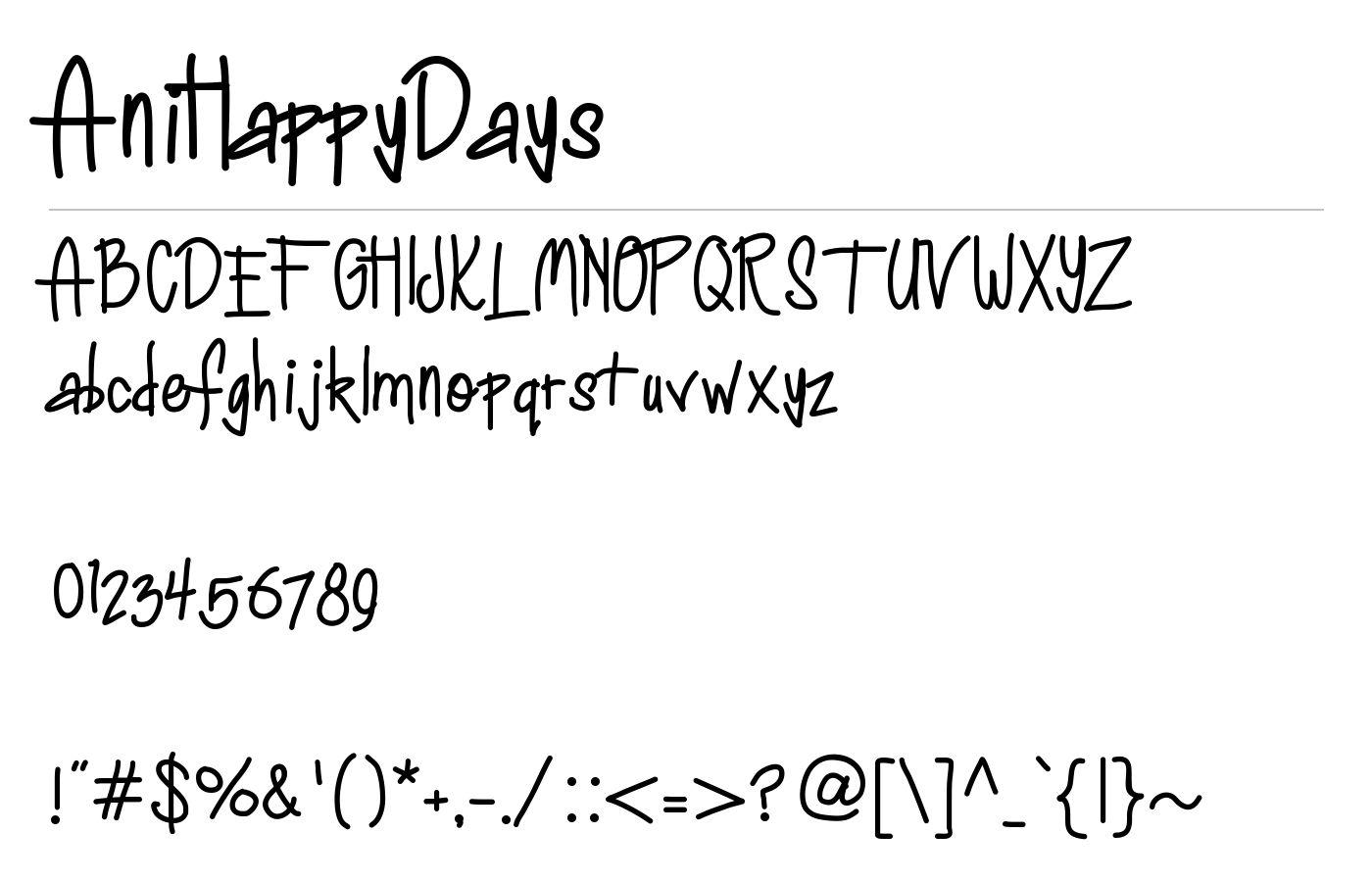
AniHappyDays is a playful and casual handwritten font that feels light and energetic with its tall, narrow letterforms and slightly uneven strokes. Its informal style and friendly character make it ideal for creative projects, children’s materials, and branding that seeks a fun, approachable vibe. This font works well for headlines, invitations, and any design needing a touch of personality and warmth.
AniHappyDays Font